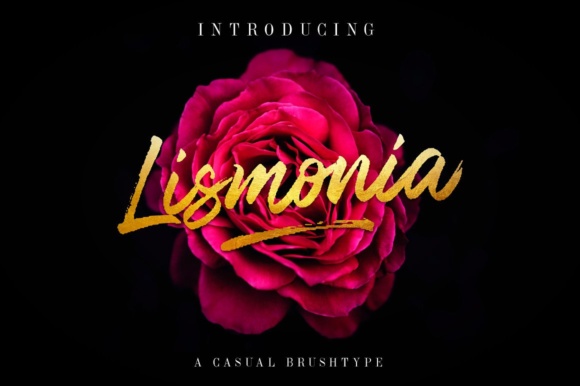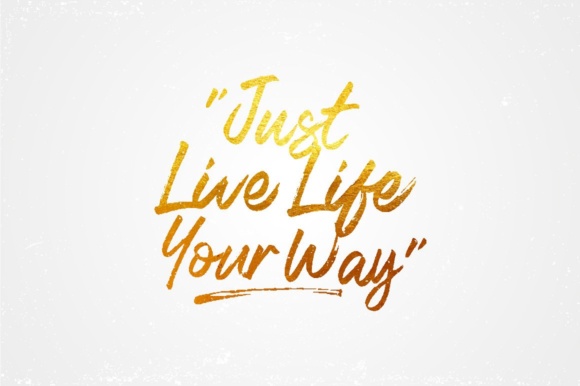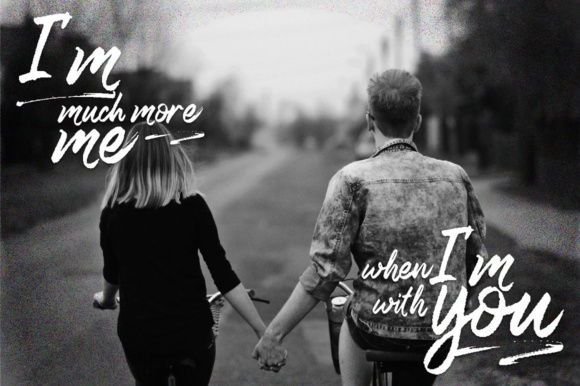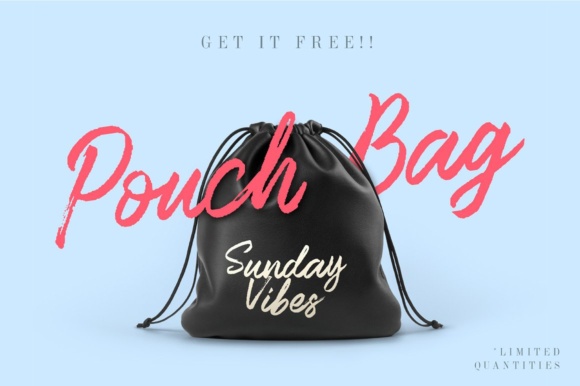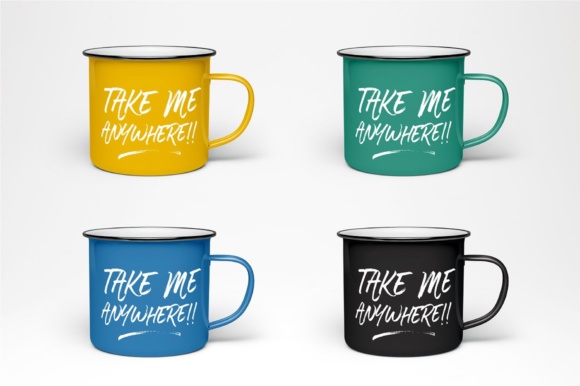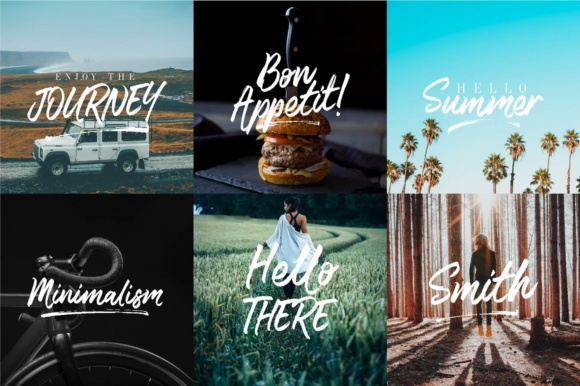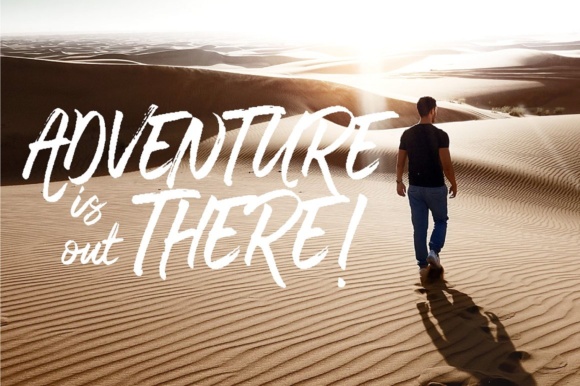
Lismonia Font
About Lismonia Font
The Lismonia is a casual handwritten brush font with quick dry strokes and a signature style. Lismonia is great to use for logos, inspirational quotes, t-shirt graphics, typography art, apparel, labels, posters, and much more!